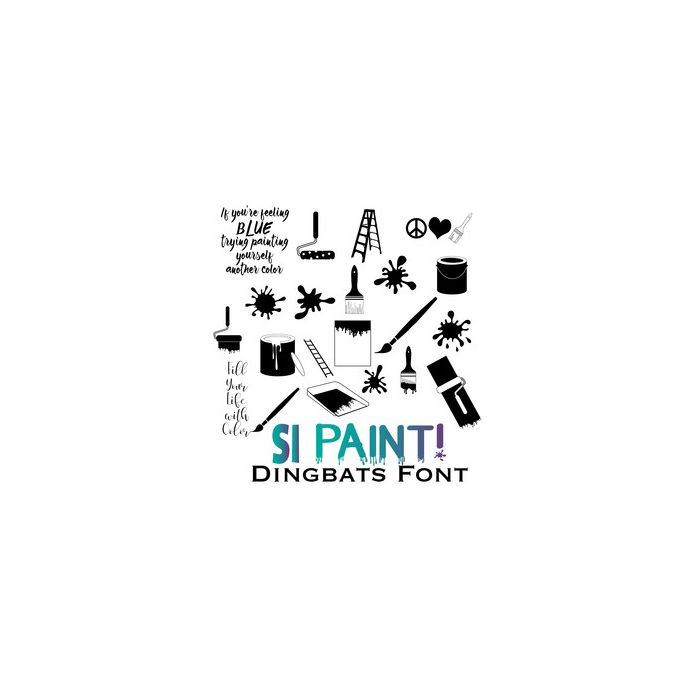
This paint-themed dingbats font (.otf) contains 26 different flourishes to type and cut. It contains splats and blobs, ladders, paint cans, rollers, paint phrases - lots. They can be used in a variety of projects. They can be used to create on tattoo paper, window clings, tags, cards, charts, planners, stamps, scrapbooking, labels - a lot of projects. And, they can be re-sized without affecting the quality. Connect with us at: https://www.facebook.com/sandiscribbles